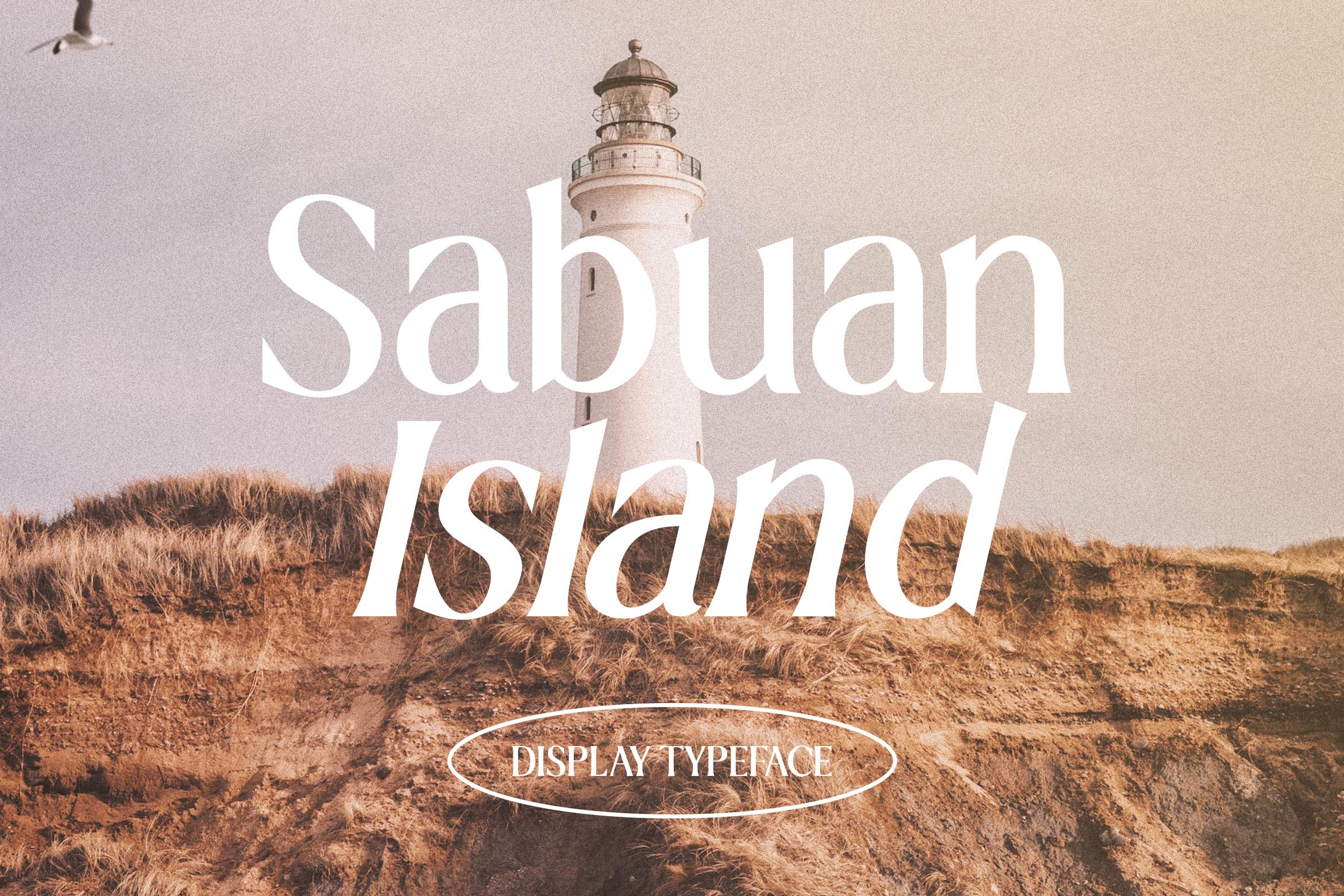
Sabuan Island Display Font
Introducing Sabuan Island Display Font
Sabuan Island is a single font with a sleek yet simple design; it stands out boldly against anything you can throw at it. Perfect for use in movie titles, album covers, fashion designs, and more!
- Sabuan Island Display Font can be read from a much larger distance than regular fonts
- Elegant lettering gives the impression of luxury
- Smooth curves for elegant typography